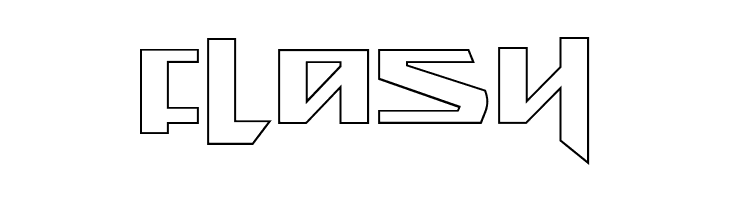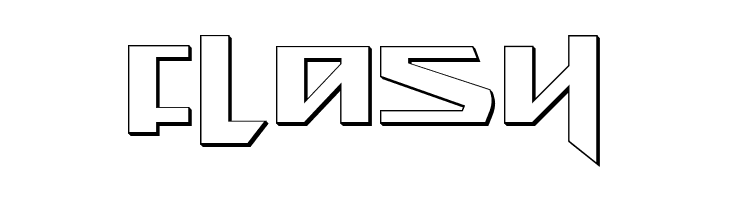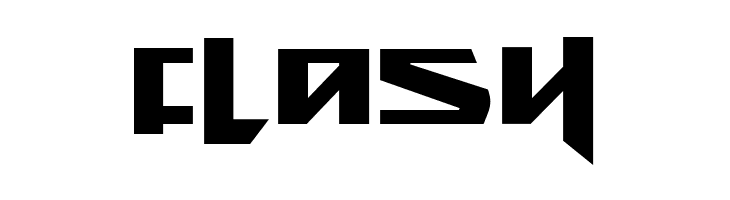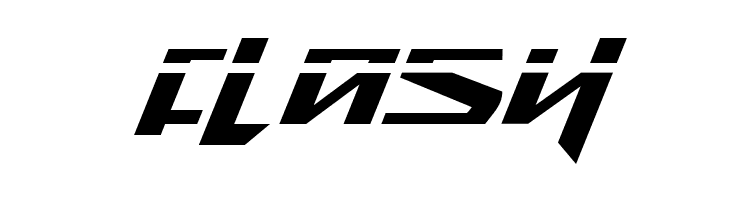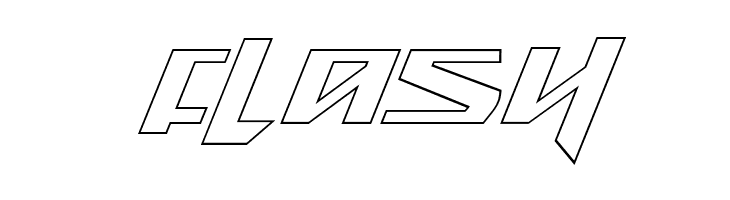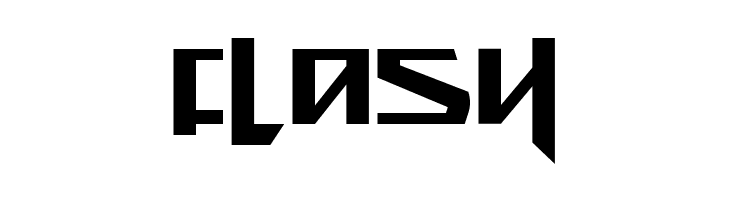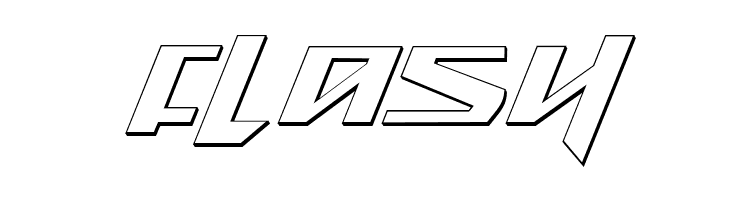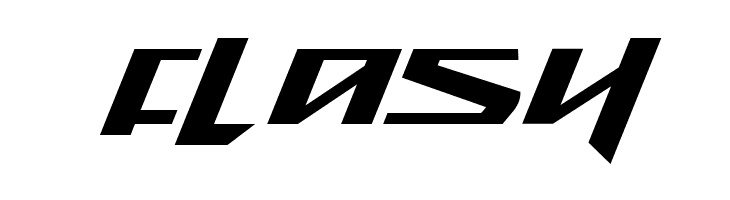
XelitaBold Font
A bold, angular, and futuristic outlined font with sharp edges.
A bold, futuristic font with sharp angles and a 3D effect.
A futuristic, angular font with a bold, sci-fi aesthetic.
A bold, angular, and futuristic outlined font with an italic slant.
A bold, angular font with a futuristic and dynamic design.
A bold, angular, and futuristic 3D italic font with sharp edges.
A bold, angular, and futuristic font with an italic and expanded style.